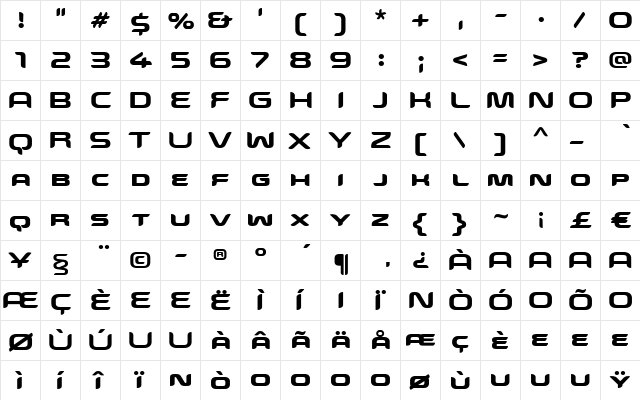
Snowslider Regular
Design Context for Snowslider Typeface
Snowslider offers clean, dependable letterforms without strong stylistic allegiance, making it a practical choice for designers who need flexibility.
Pro Tip: Use Snowslider in both headline and body roles to test its range before committing to a single application.